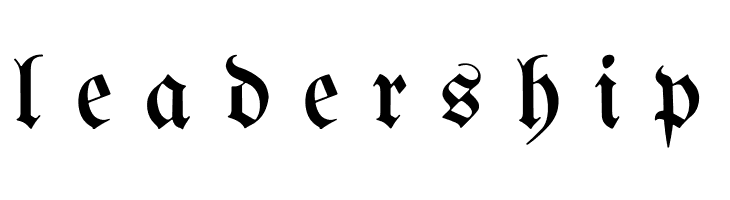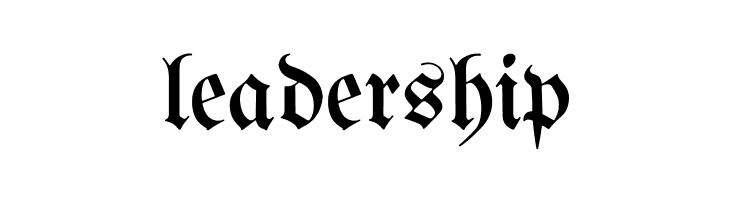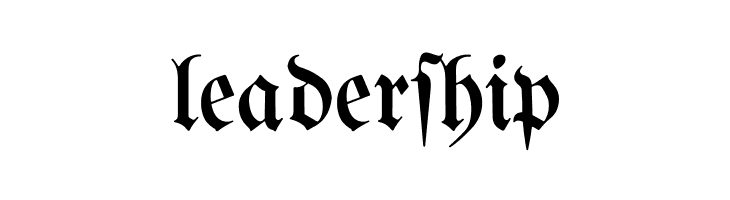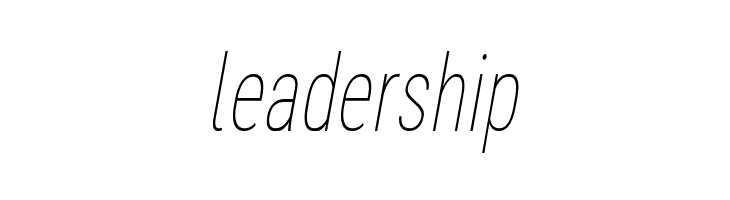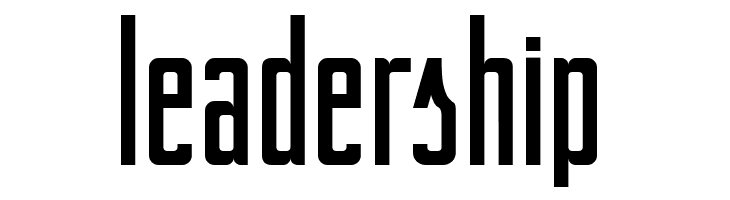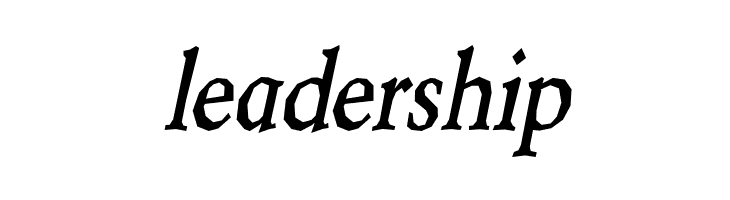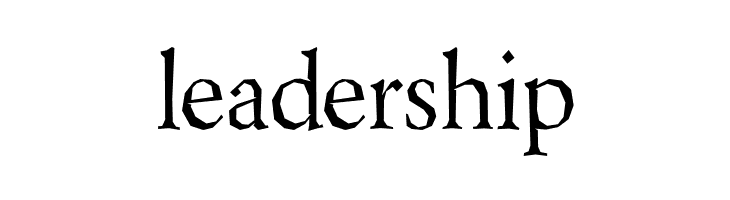
A thin, italicized sans-serif font with a modern and elegant design.
An ornate and traditional font with intricate, angular characters.
A traditional Blackletter font with intricate, ornate letterforms and a historical aesthetic.
A traditional blackletter font with ornate, angular letterforms and decorative flourishes.
An ornate and decorative font with historical elegance.
An ornate Blackletter font with intricate, angular designs and historical elegance.
A classic Blackletter font with intricate, gothic-style characters.